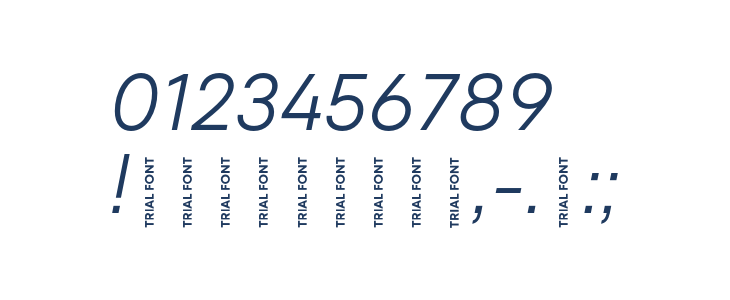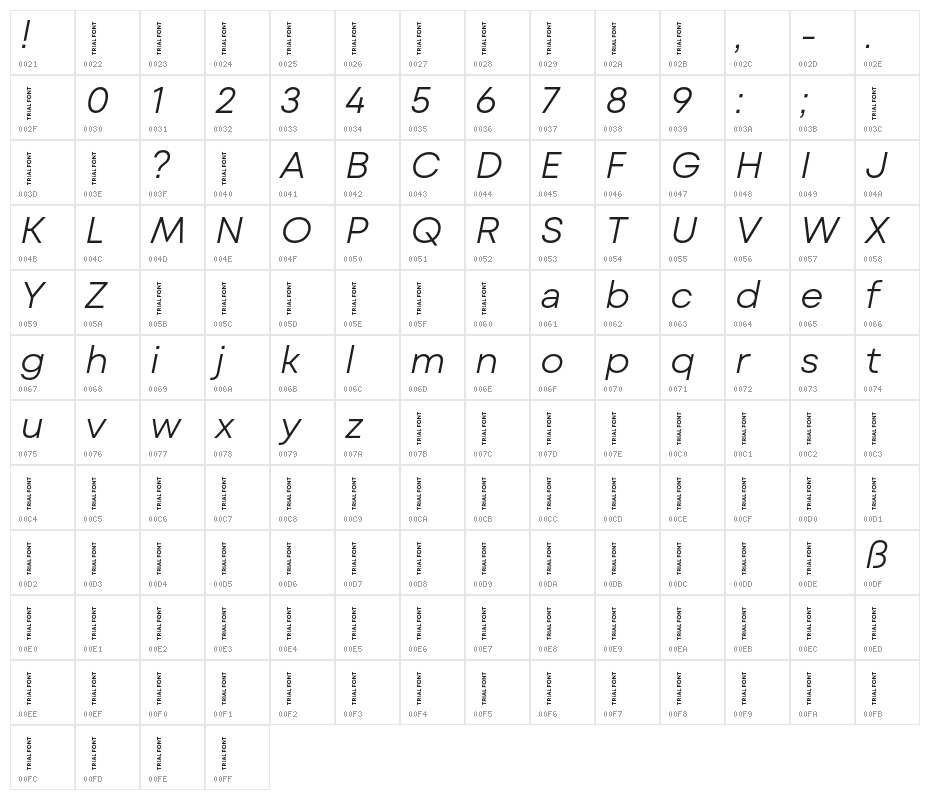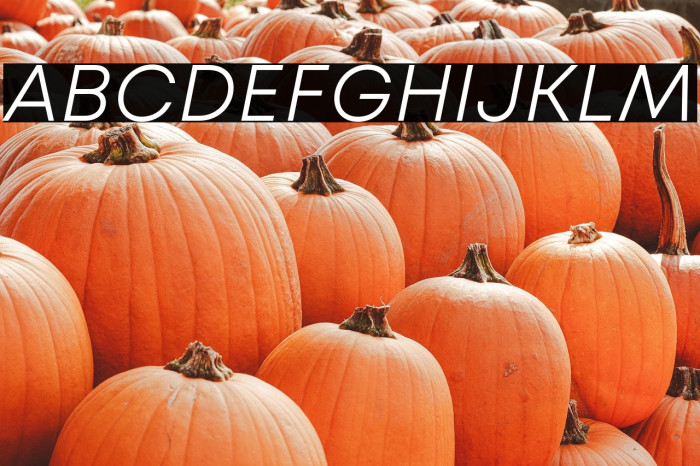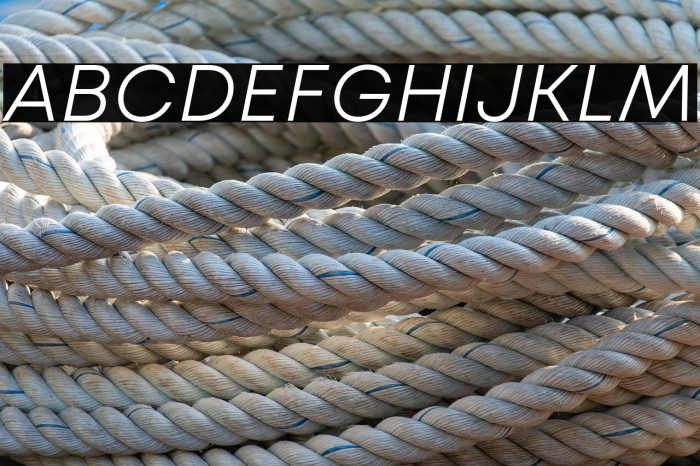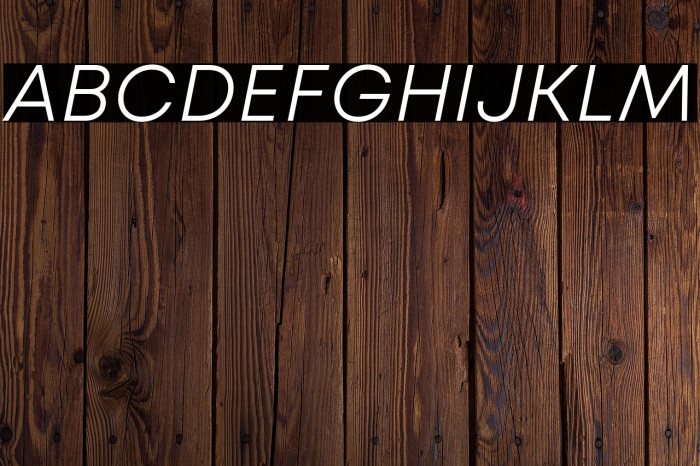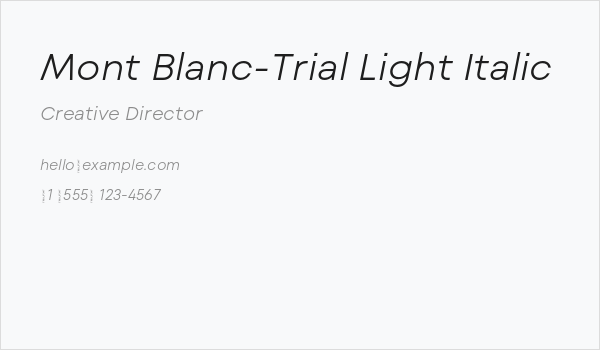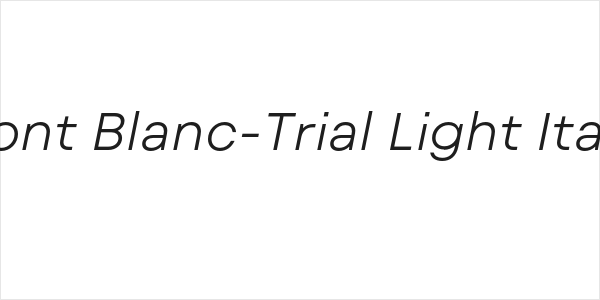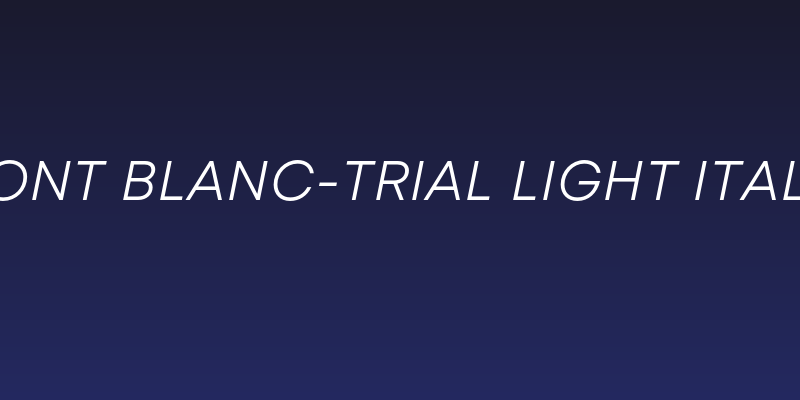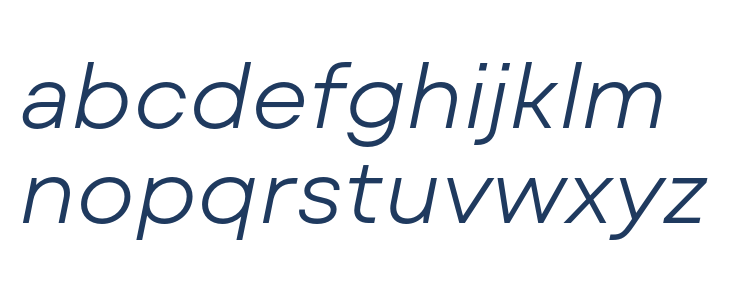
Mont Blanc-Trial Light Italic Font
Mont Blanc-Trial Light Italic Description
This font features a sleek and modern design with a light weight and italic style. The characters are elegantly slanted, providing a sense of motion and sophistication. The letterforms are clean and streamlined, with a consistent stroke width that enhances readability. The font maintains a balanced proportion, making it suitable for a variety of design applications. Its minimalistic approach ensures versatility, while the italic angle adds a touch of elegance. The numerals and special characters are designed to complement the overall aesthetic, ensuring a cohesive look across different uses.